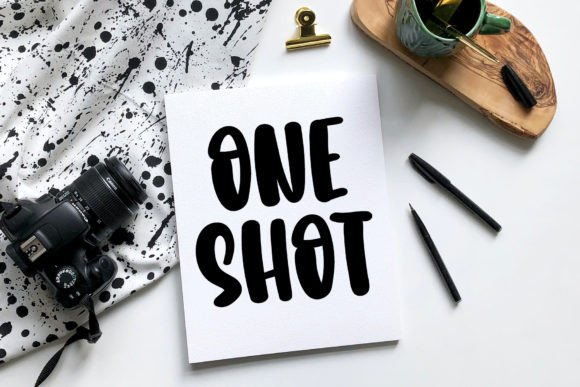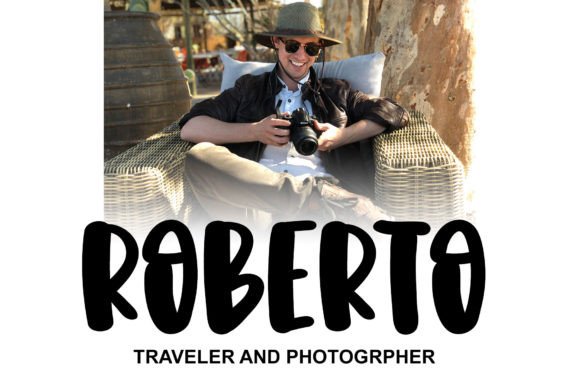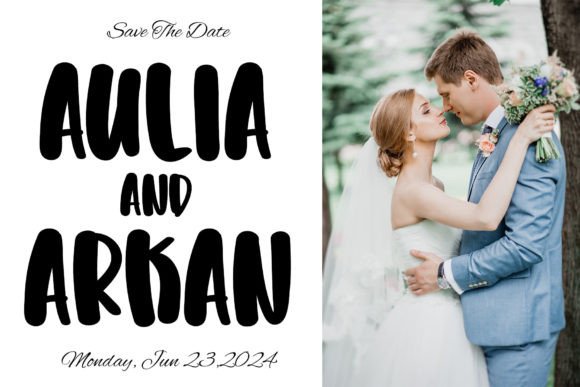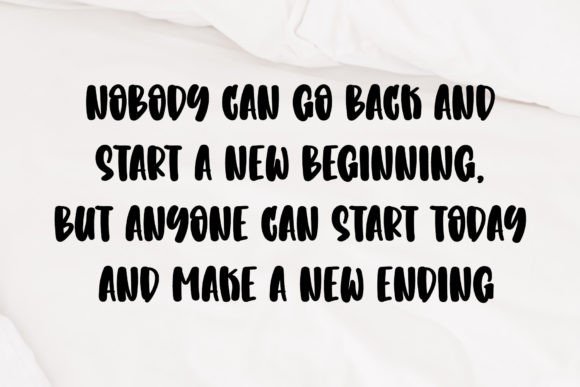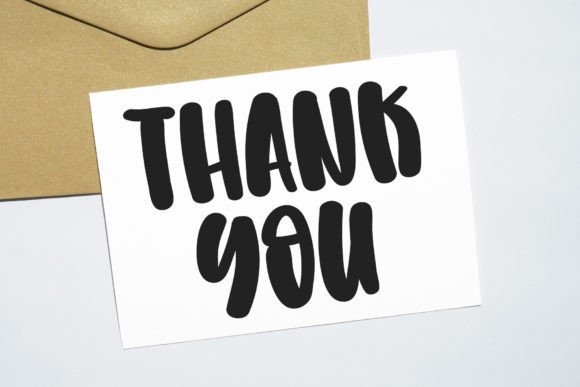
Introduction to Sample Simple Font
Do you remember that moment when you’re working on a creative project, and you’re stuck on the perfect font to bring your vision to life? It’s like searching for the missing piece of a puzzle – you know it’s out there, but you’re not quite sure where to find it. That’s where Sample Simple Font comes in – a sweet and friendly display font that’s as versatile as it is charming.
This natural and unique style makes Sample Simple Font an incredibly valuable resource for designers, allowing you to add a touch of personality to any design project. With its free download option and high-quality design, you can experiment with different layouts and styles without breaking the bank. Whether you’re working on a project with a transparent background or a bold, eye-catching design, Sample Simple Font is sure to inspire your creativity.
As a go-to design resource, Sample Simple Font is perfect for designers looking to add a touch of whimsy and charm to their work. So why not give it a try and see where your imagination takes you?
Key Features of Sample Simple Font
- High-quality design resource ideal for creative projects, including graphic design, web design, and digital art.
- Designed with simplicity in mind, making it an excellent choice for projects requiring a clean and minimalist aesthetic.
Honest Review: Sample Simple Font
As a designer, I’m always on the lookout for high-quality fonts to elevate my creative projects. The Sample Simple Font caught my attention with its promise of a clean and simple design. I was excited to dive in and see how it would perform.
Here’s what works well: ✨ The font is incredibly easy to read, even at small sizes. The simple design makes it perfect for body text in my designs. The weight options are also well-balanced, making it easy to use in a variety of contexts.
Some things that didn’t quite work as expected: ⚠️ While the font is available for free download, the transparent background option can be a bit tricky to work with. I had to do some extra tweaking to get it to look right in my design.
Here are some of the key features I liked:
- High-quality design that’s perfect for body text
- Well-balanced weight options
Overall, I’m impressed with the Sample Simple Font. While it has some limitations, its strengths make it a valuable resource for any designer working on a creative project. With a little extra effort, I was able to get the most out of this design resource and achieve the look I wanted.
Tips for Getting the Most Out of Sample Simple Font
Use the transparent background feature to create a seamless design, and pair the font with a matching color scheme for a cohesive look. This design resource is perfect for creating engaging graphics, posters, or social media content.
Common Use Cases for Sample Simple Font
Sample Simple Font is ideal for creating invitations, flyers, brochures, and other marketing materials. Its clean and simple design makes it a great choice for any creative project that requires a professional and modern look.